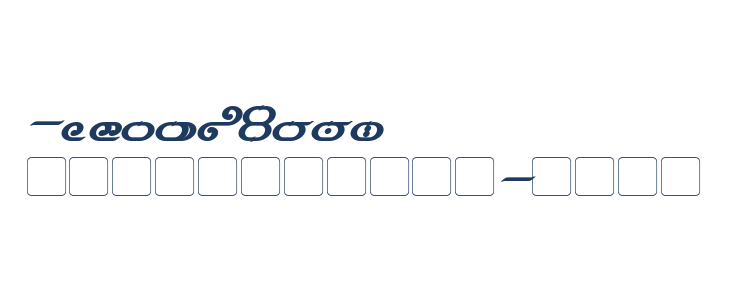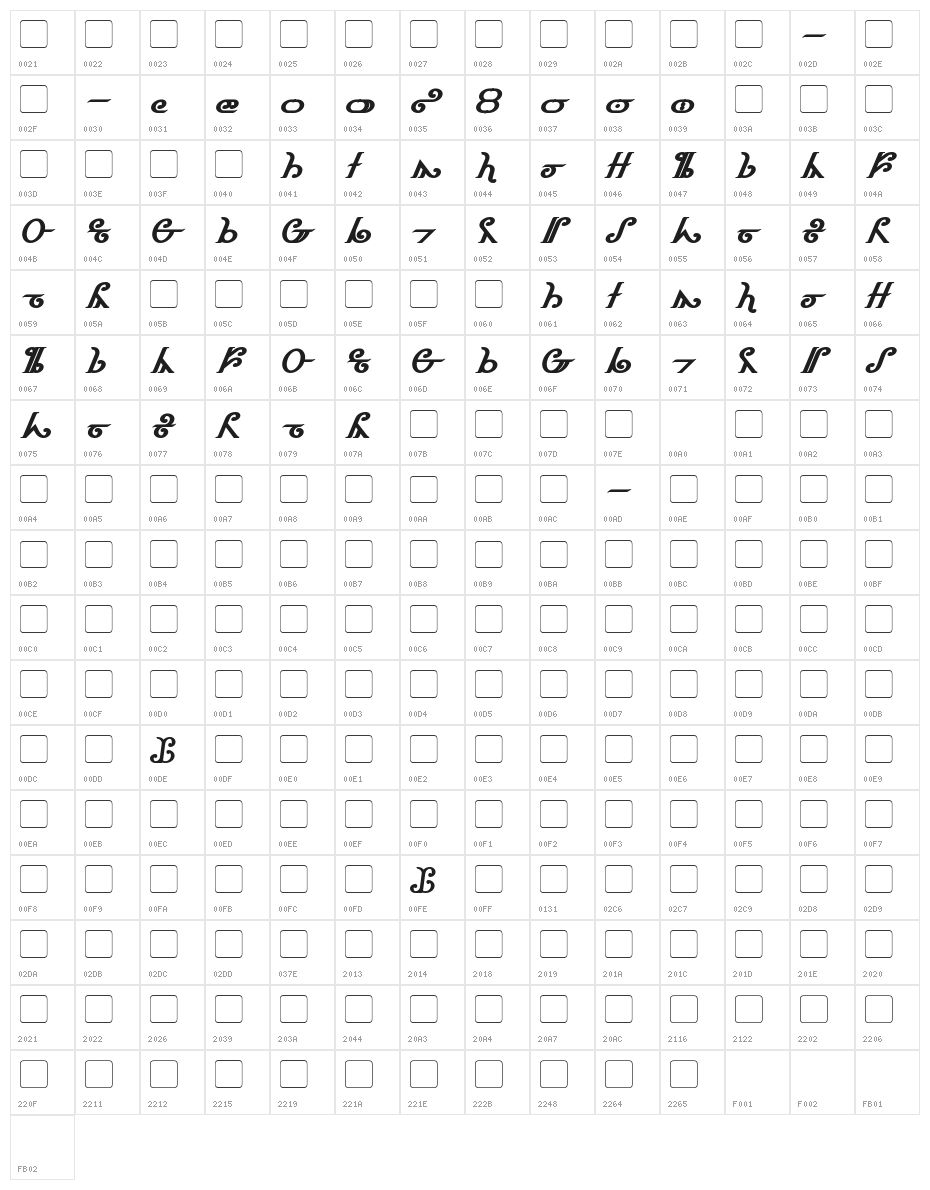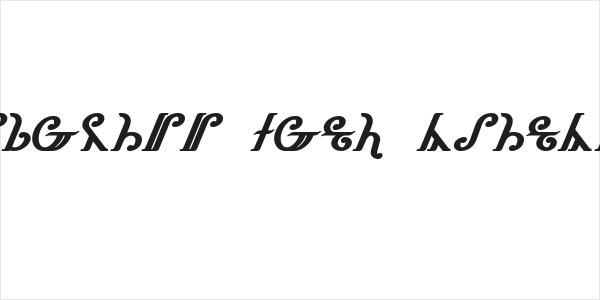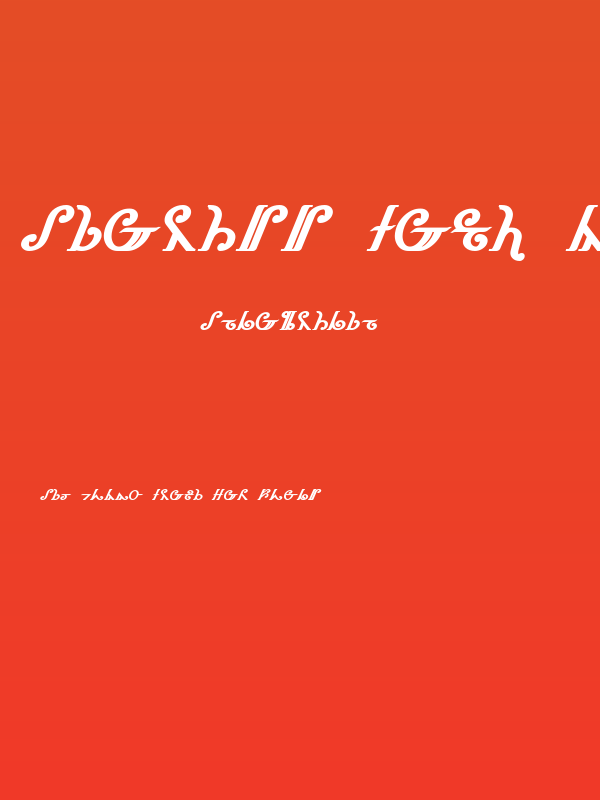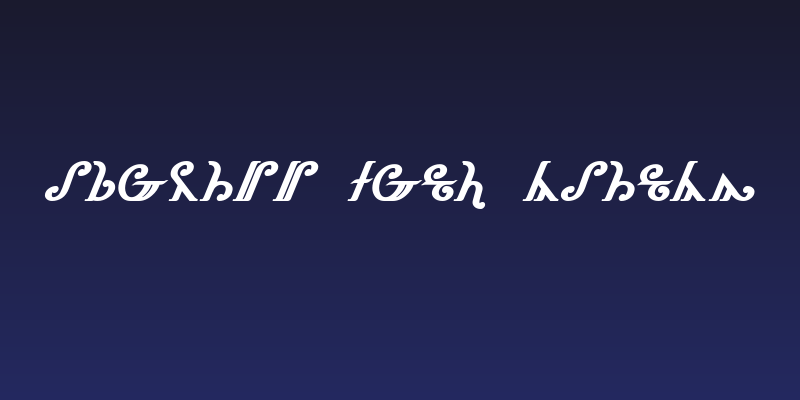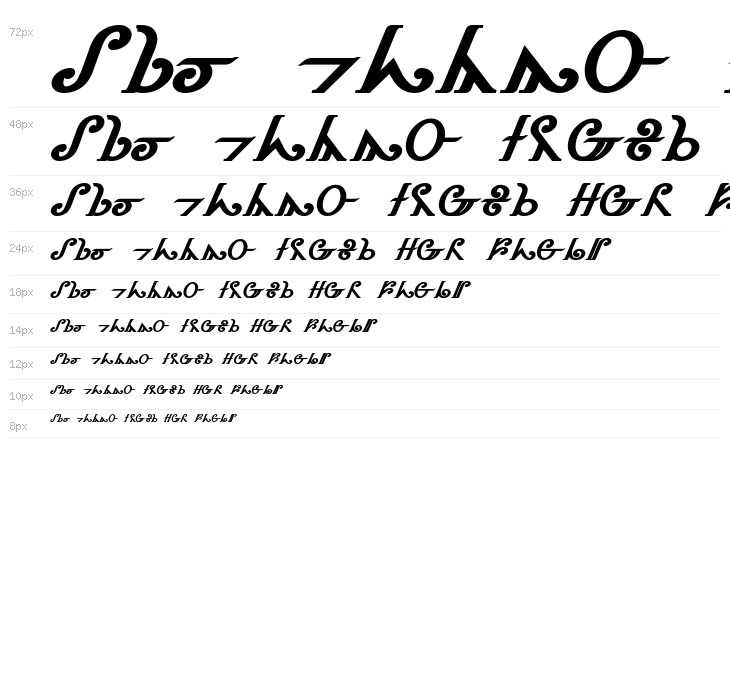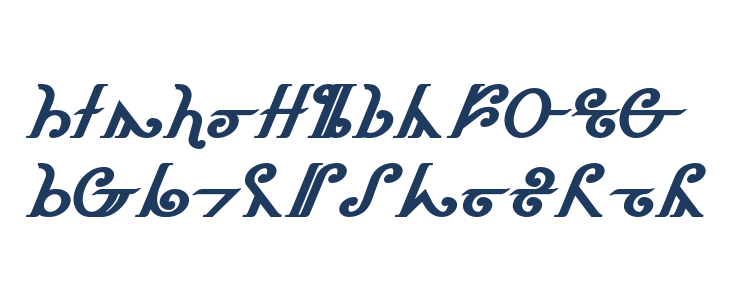
Thorass Bold Italic Font
Thorass Bold Italic Description
This font exhibits a bold and italicized style with a distinct decorative flair. The characters are highly stylized, featuring elaborate curves and swirls that give it a unique, almost mystical appearance. The uppercase letters are particularly ornate, with exaggerated serifs and strokes that create a sense of movement and fluidity. The lowercase letters maintain this decorative style, though they are slightly more restrained, allowing for better readability. The numerals and special characters continue the theme, with each symbol crafted to match the overall aesthetic. This font is ideal for projects that require a touch of fantasy or elegance, making it suitable for themed events, fantasy book covers, or artistic posters.
| Proposed Projects | Fantasy book covers, themed event invitations, artistic posters, or branding for creative industries. |